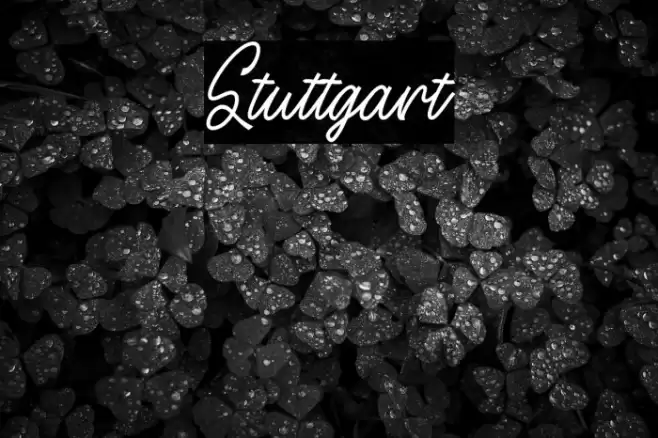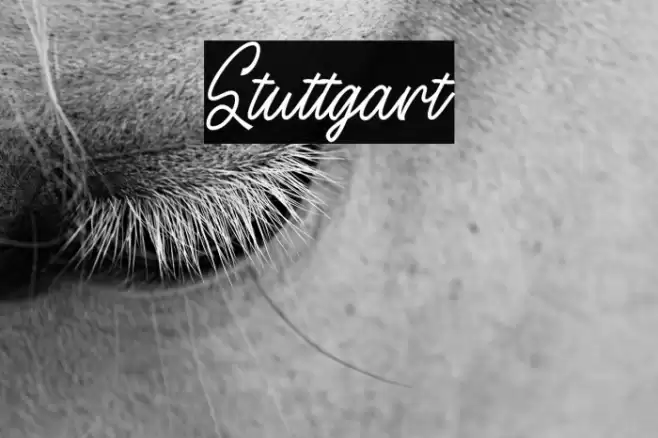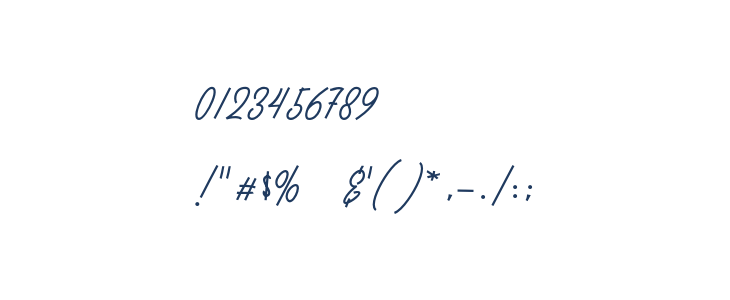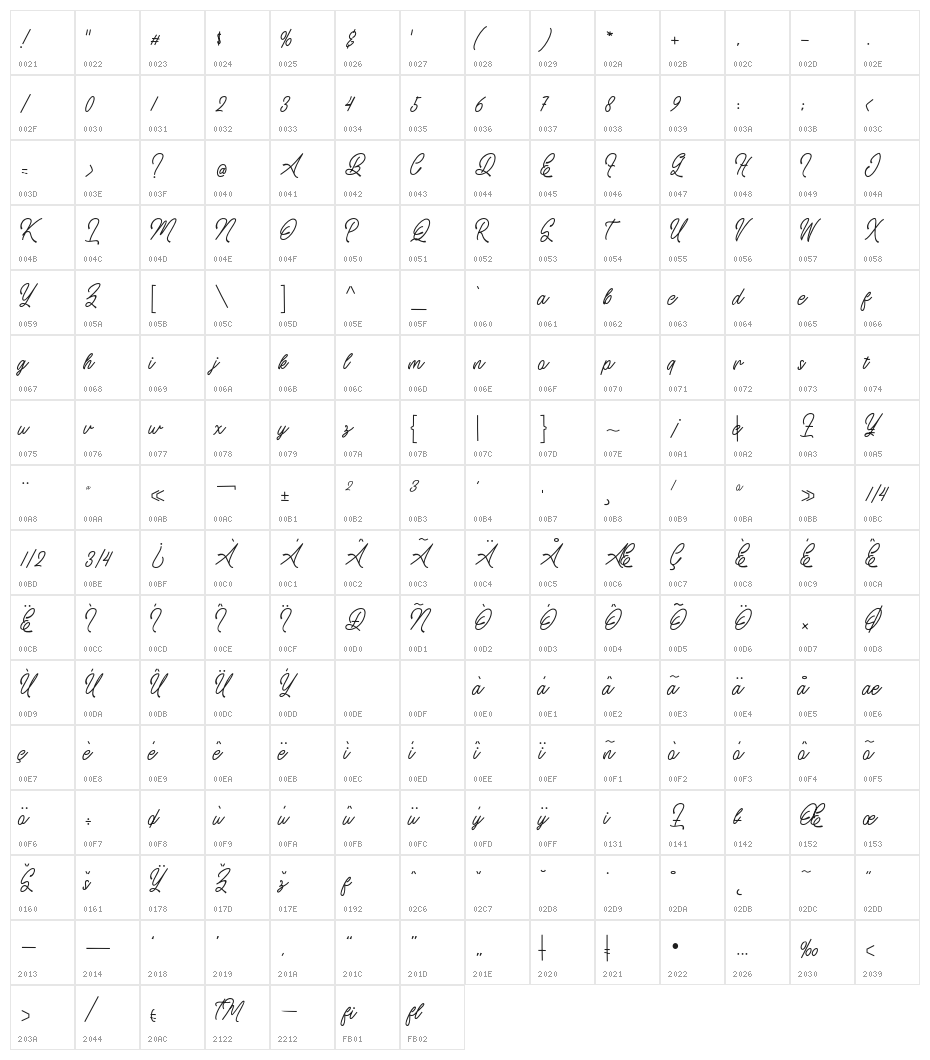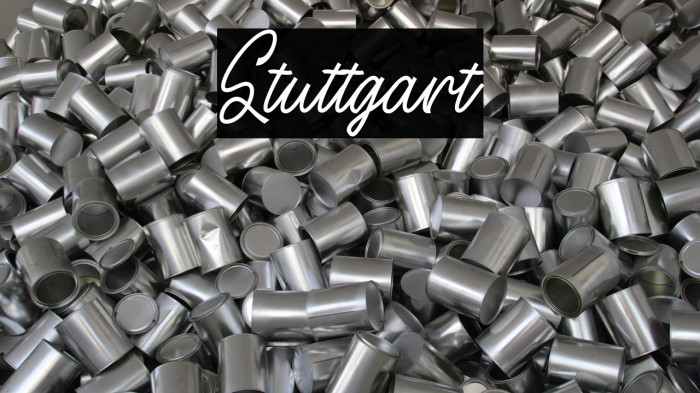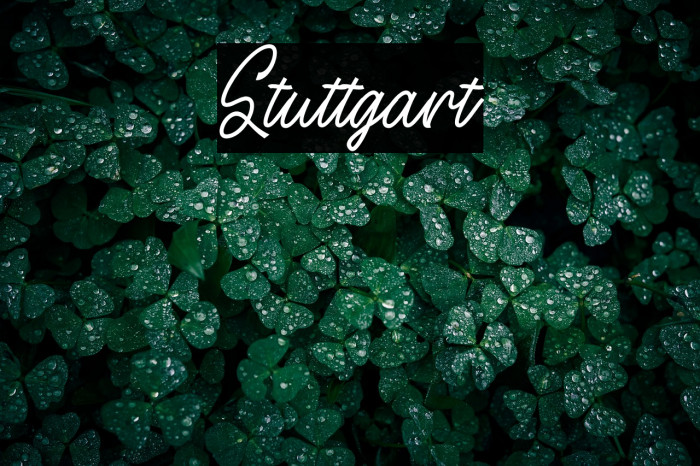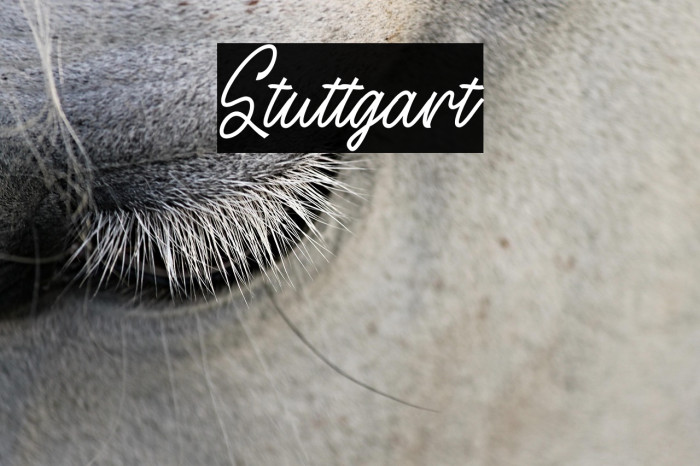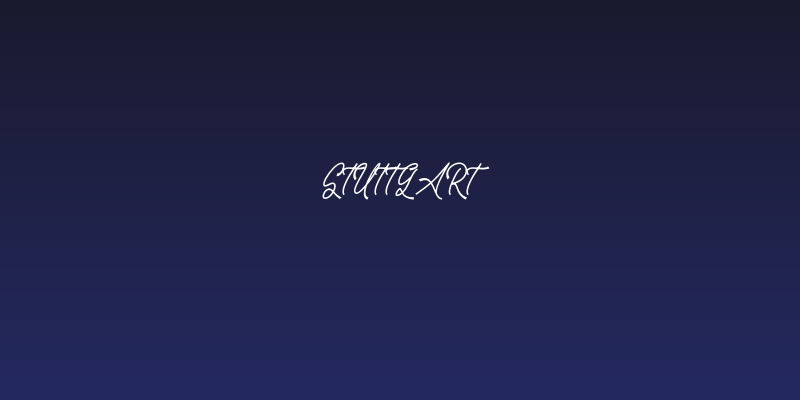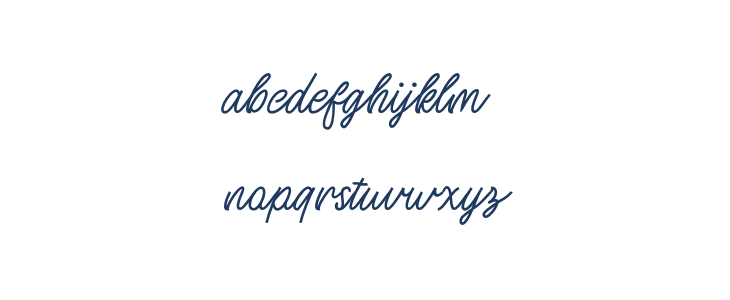
Stuttgart Font
Stuttgart Description
This elegant script font features fluid, cursive strokes that give it a sophisticated and graceful appearance. The letters are interconnected, creating a seamless flow that is both stylish and readable. The uppercase letters are slightly more elaborate, with flourishes that add a touch of flair, while the lowercase letters maintain a consistent, smooth rhythm. The numerals and special characters are designed to match the overall aesthetic, ensuring a cohesive look across all text. This font is perfect for projects that require a touch of elegance and class.
A graceful script font with fluid, interconnected strokes and elegant flourishes from Uncategorized fonts.
- Proposed Projects: Ideal for wedding invitations, elegant branding, personal signatures, and upscale packaging.
- Overall Style: Elegant
- Use Case: Logos, Invitations, Headlines